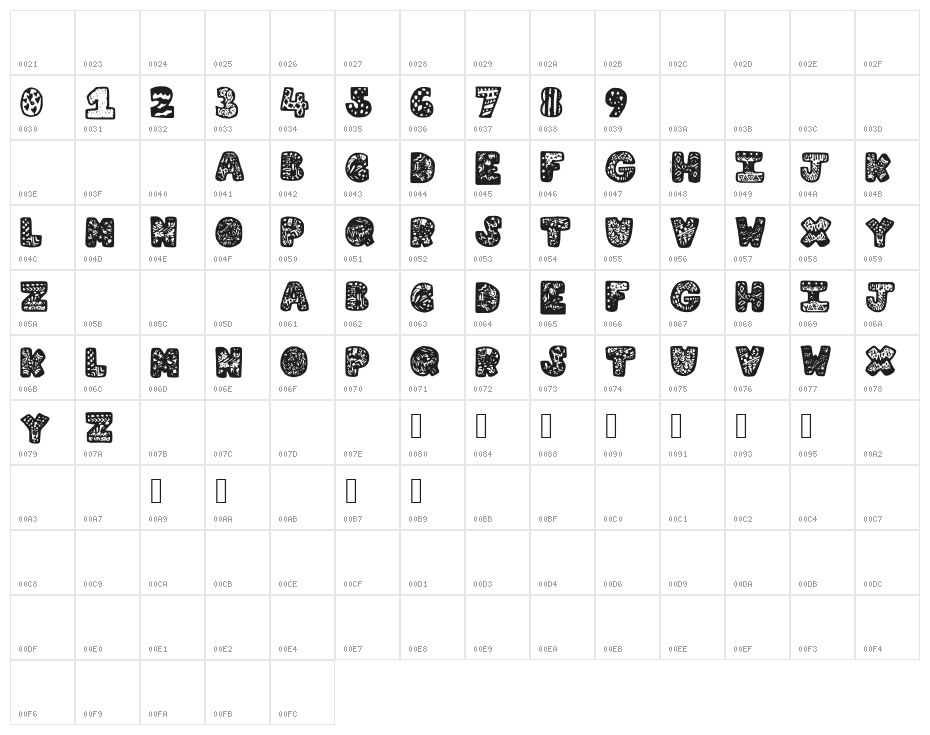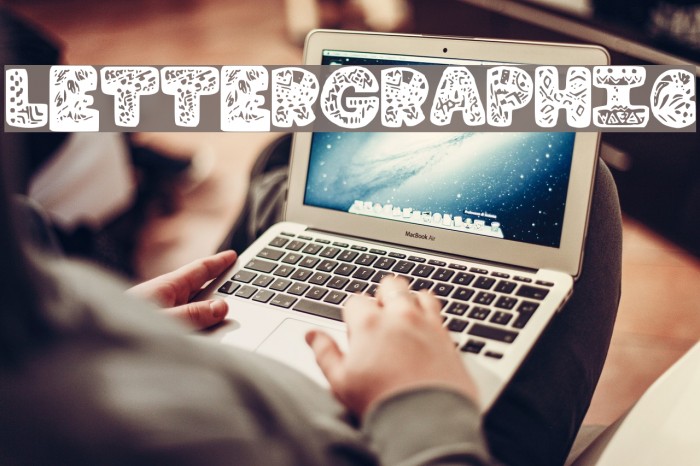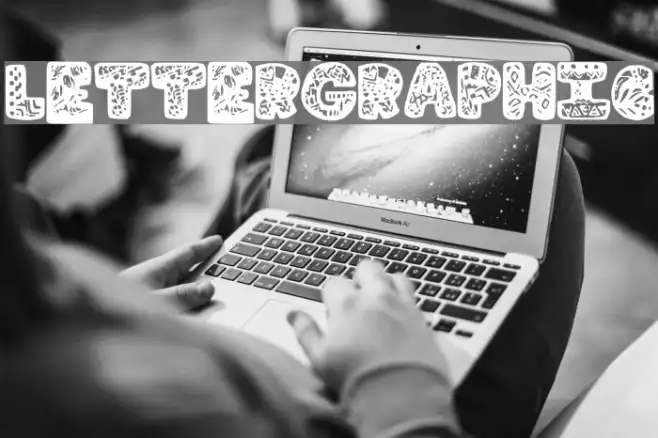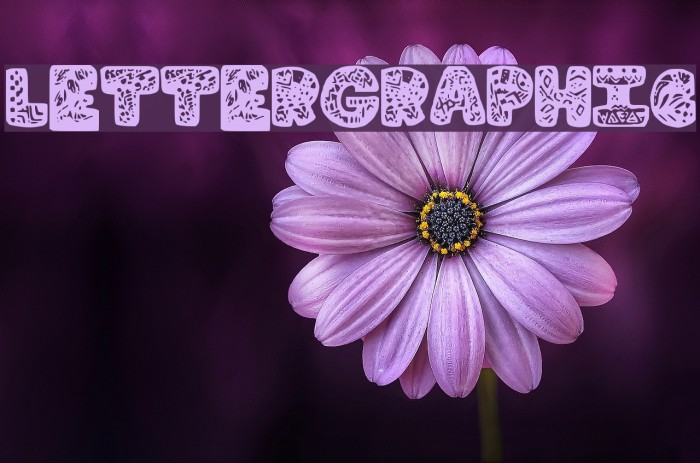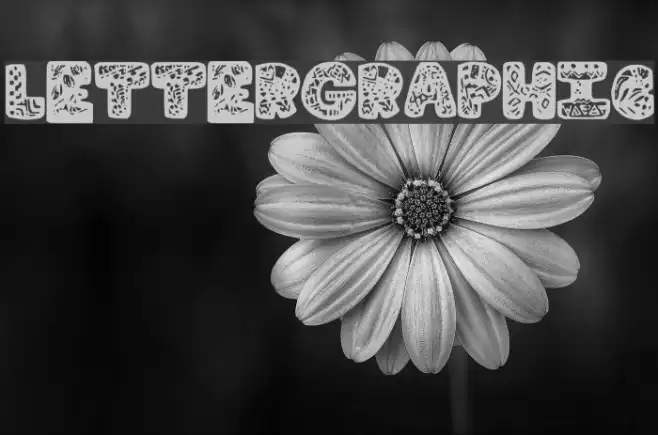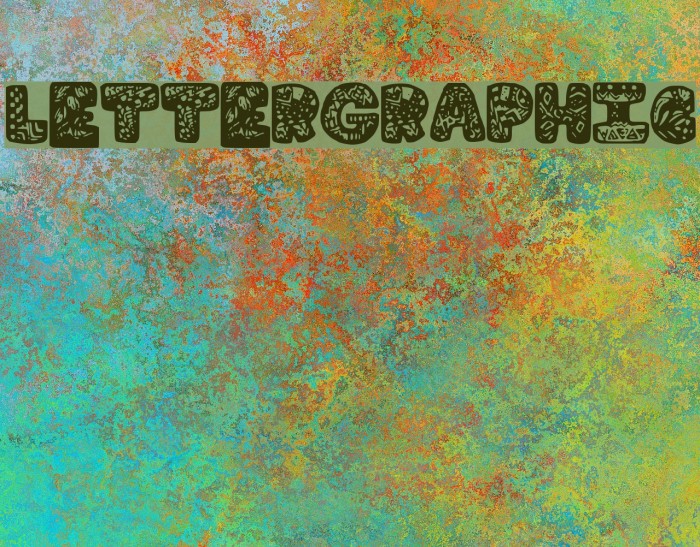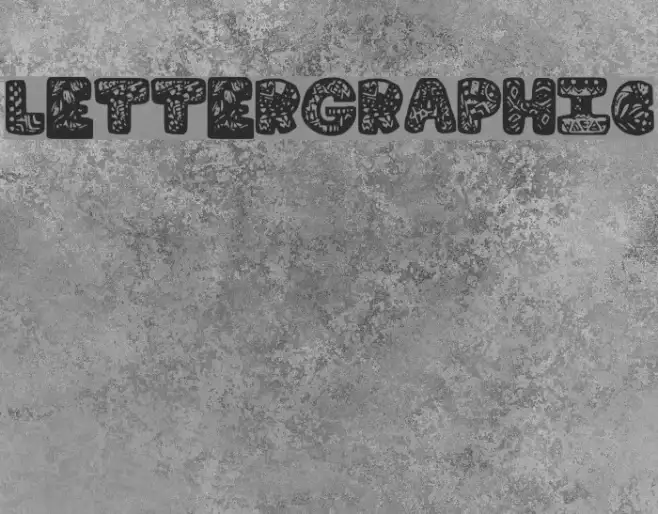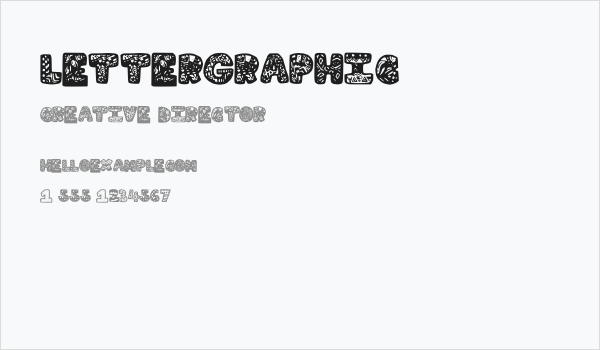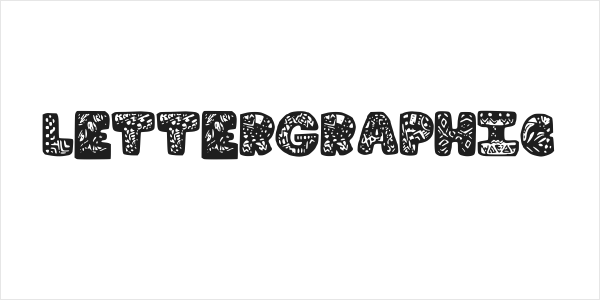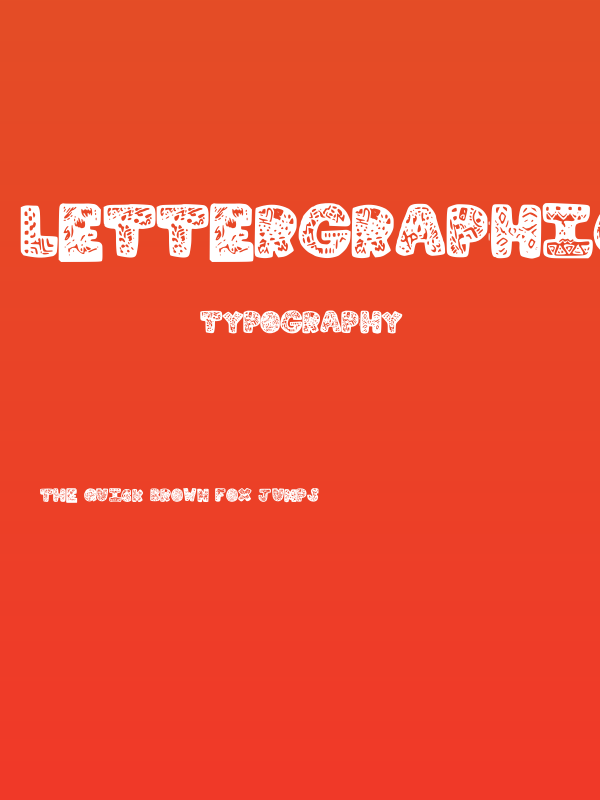
LetterGraphic Font
LetterGraphic Description
This font is a bold and playful decorative typeface featuring intricate patterns and textures within each character. The letters are filled with unique designs, such as swirls, dots, and geometric shapes, giving it a lively and artistic appearance. The uppercase and lowercase letters maintain a consistent style, with each character standing out due to its detailed internal artwork. The numbers follow the same decorative theme, making them visually cohesive with the alphabet. This font is ideal for projects that require a fun and creative touch, such as children's books, posters, or event invitations.